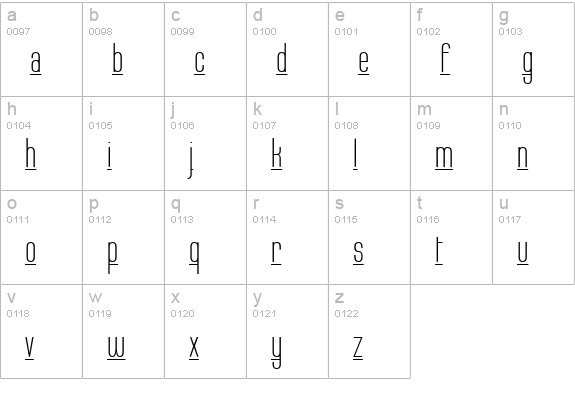
Introducing Labtop Underscore font, a modern and stylish typeface that is perfect for adding a touch of sophistication to your designs. This elegant font features sleek lines and a unique underscore detail that sets it apart from other fonts. Whether you are designing a logo, website, or any other creative project, Labtop Underscore font is sure to make a statement. The best part is that Labtop Underscore font is completely free to download at FontsMarket.com. This means you can add this stunning font to your collection without having to spend a dime. Don't miss out on the opportunity to enhance your designs with this beautiful and versatile typeface. Download Labtop Underscore font today and take your projects to the next level.